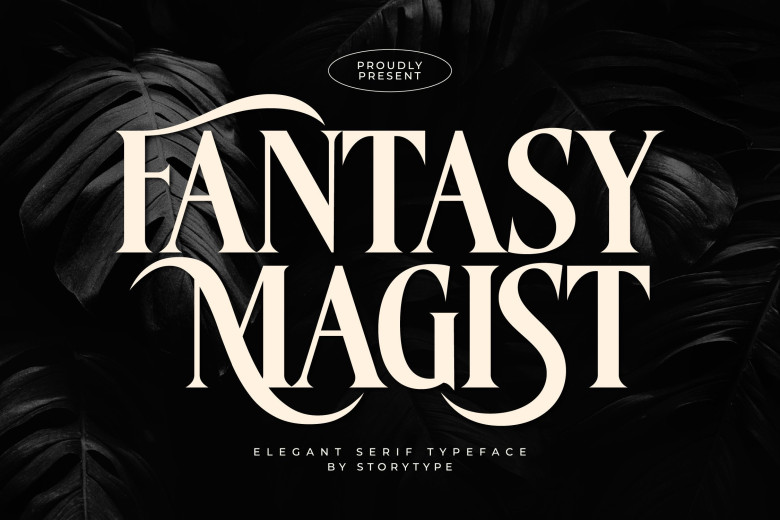
Fantasy Magist Font
Fantasy Magist features an eye-catching serif font perfect for creating modern wedding invitations, stationery art pieces and eye-catching social media posts! PUA-encoding makes accessing all glyphs and laches easier!
Fantasy Magist Serif Font